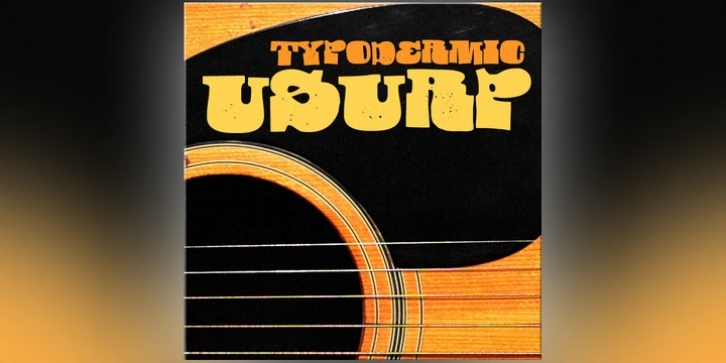
Usurp is a cut-rubber freak-out with . . . what were we talking about? Okay, yeah! It’s got letters, man. Lots of freaky letters that are all like whoa and rainbows trails shooting out and what have you. The OpenType format features autoligs which automatically swap common letter pairs with variations to create a more realistic, less repetitive effect. Usurp is based on Garamond letterforms if you think about it.